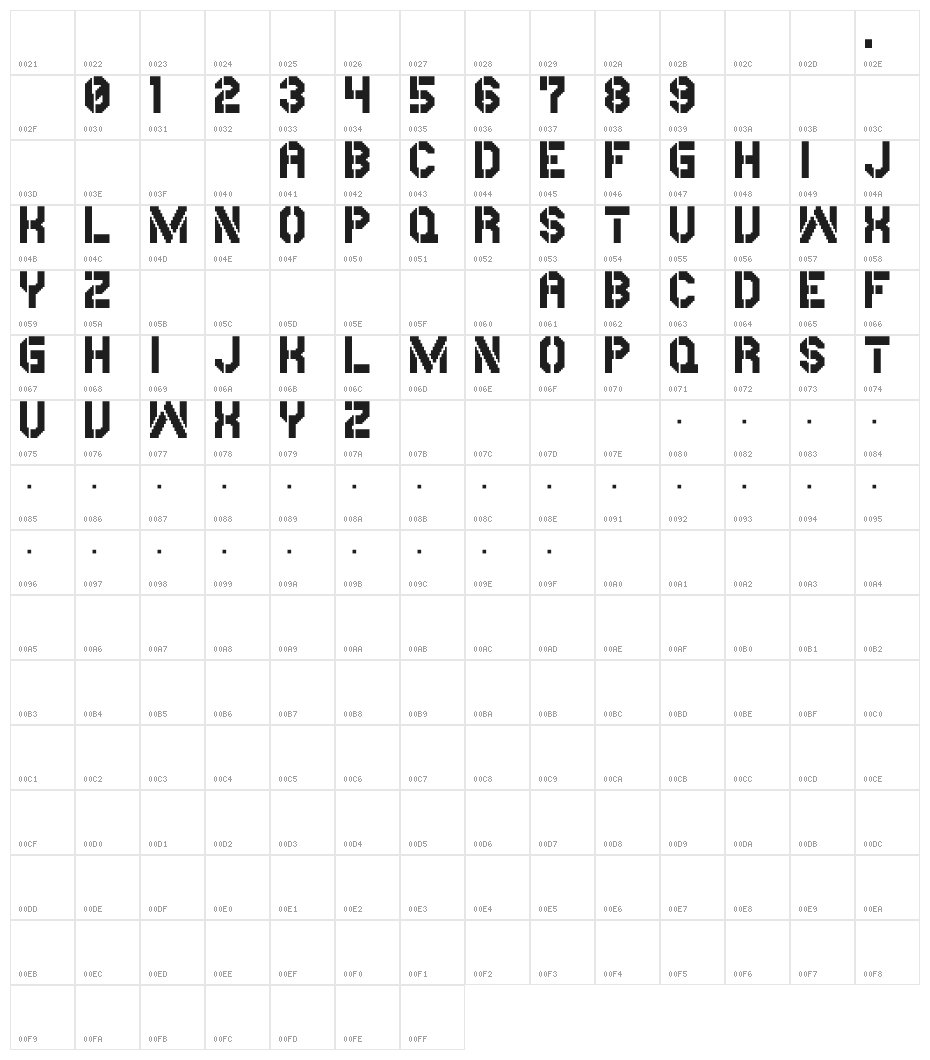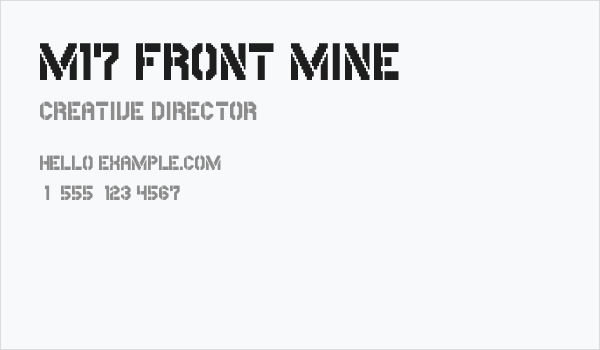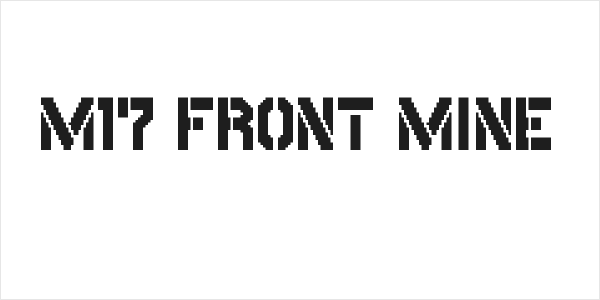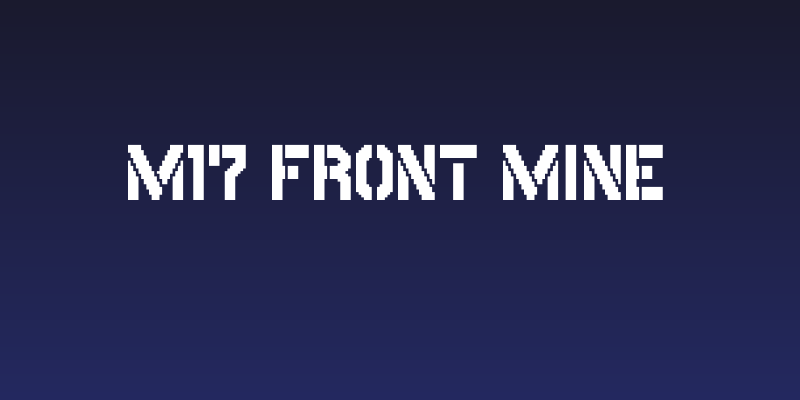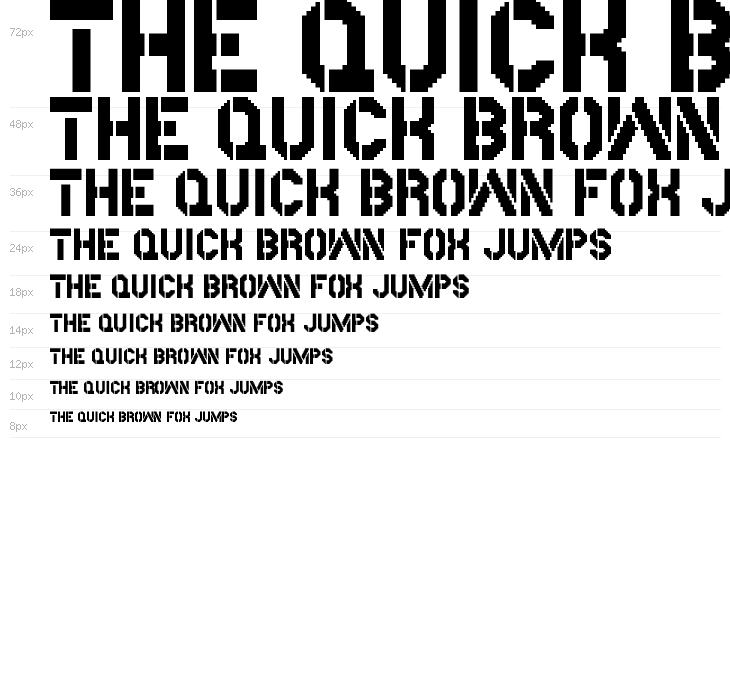
M17_FRONT MINE Font
M17_FRONT MINE Description
This font features a bold, geometric design with a distinctly modern and digital aesthetic. The characters are constructed with sharp angles and a blocky appearance, reminiscent of pixel art or digital displays. The uppercase and lowercase letters maintain a consistent style, emphasizing uniformity and a strong visual impact. The numbers and special characters follow the same design principles, ensuring a cohesive look across all glyphs. The font's unique style makes it stand out, ideal for projects that require a futuristic or tech-inspired theme.